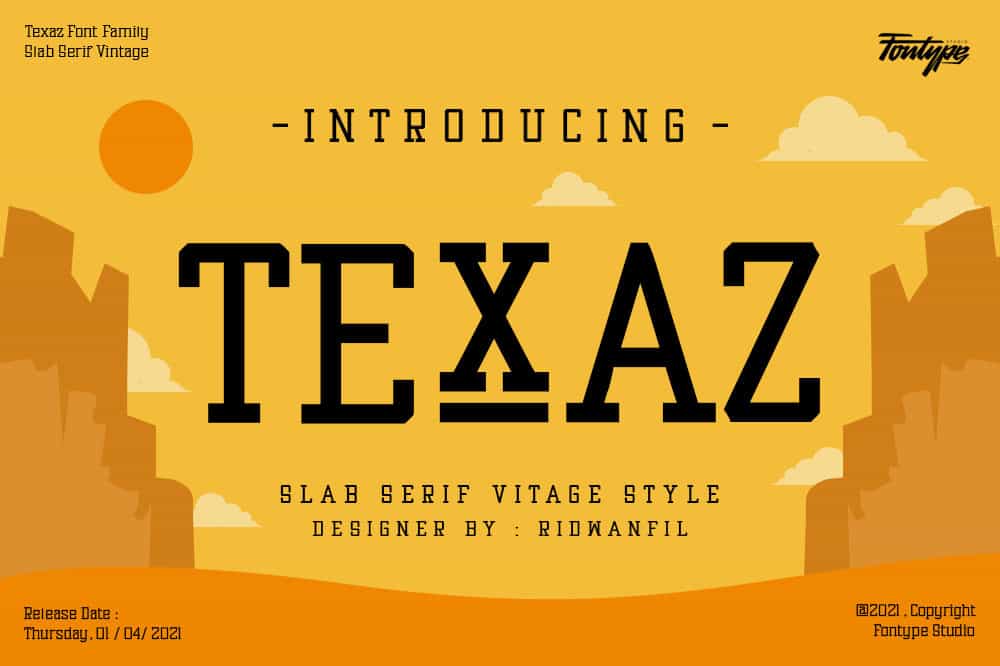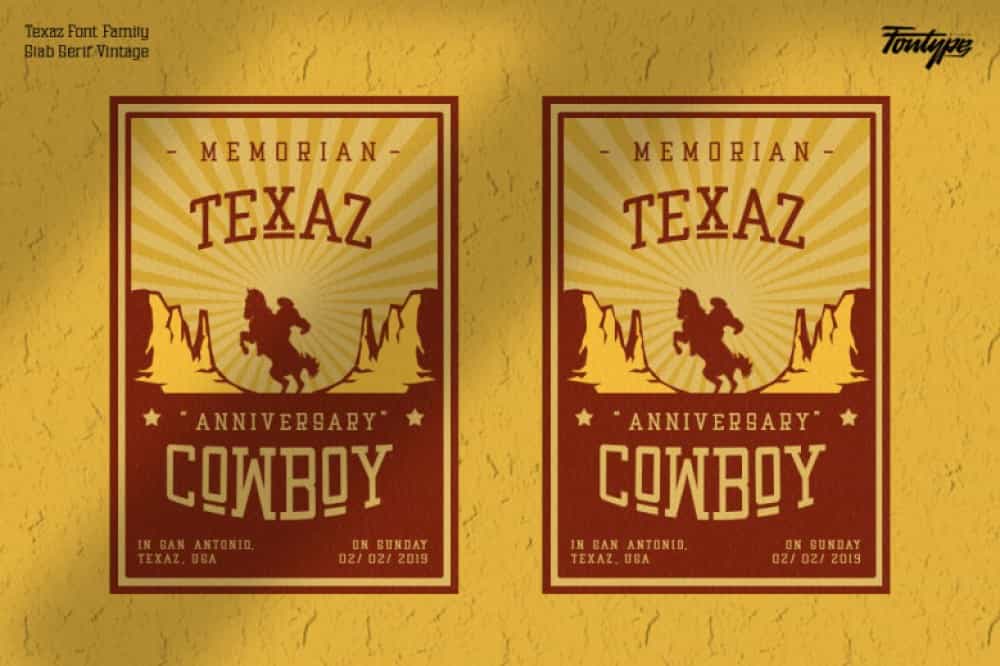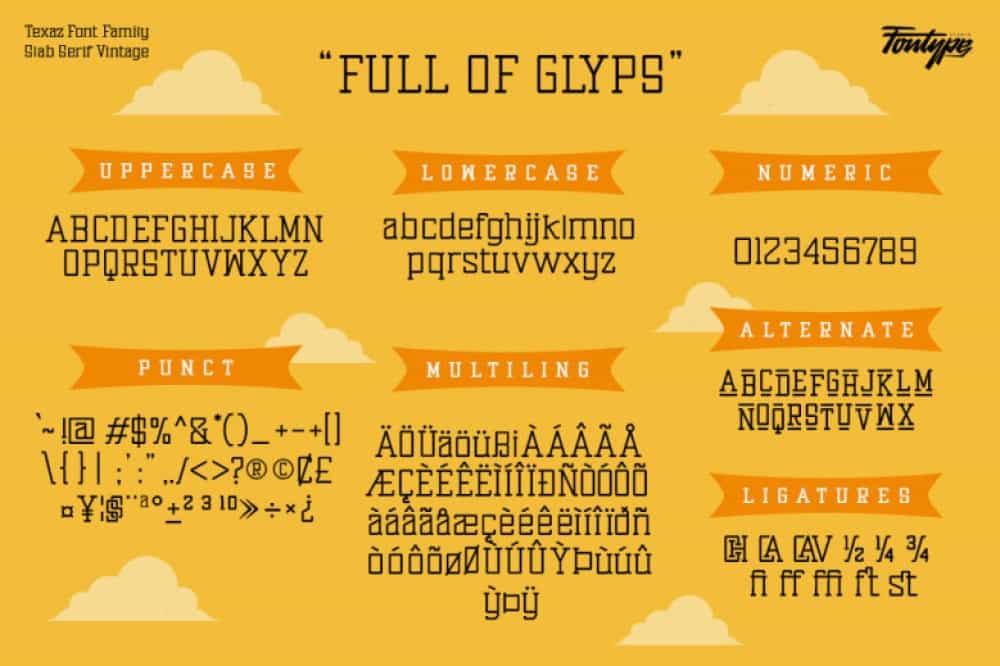
Discover Texaz Font, part of the Slab Serif Vintage collection—a versatile and unique font perfect for adding a personal touch to your projects. Download it for free and enjoy crafting designs with style, from invitations to social media posts. This font is available exclusively for personal use, giving you the freedom to create without limits. Unlock your creativity with Texaz Font today!
Texaz is an eye-catching vintage Slab Serif font that will add vintage appeal to any typeface in your font library. No matter the subject matter or subject matter of discussion, this font can make any typeface look better!